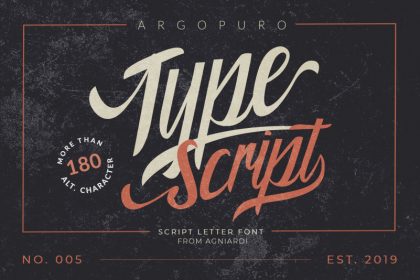
Argopuro Script Font
Introducing: Argopuro Script font!
What will you get in this font pack : ARGOPURO SCRIPT The font with total 180++ glyphs! Including upper and lowercase Standard Characters, Punctuation, Numerals including ligatures and stylistic alternate as well. This typeface is based on manual handwriting which is very suitable for any design needs you have especially for script logotype project.